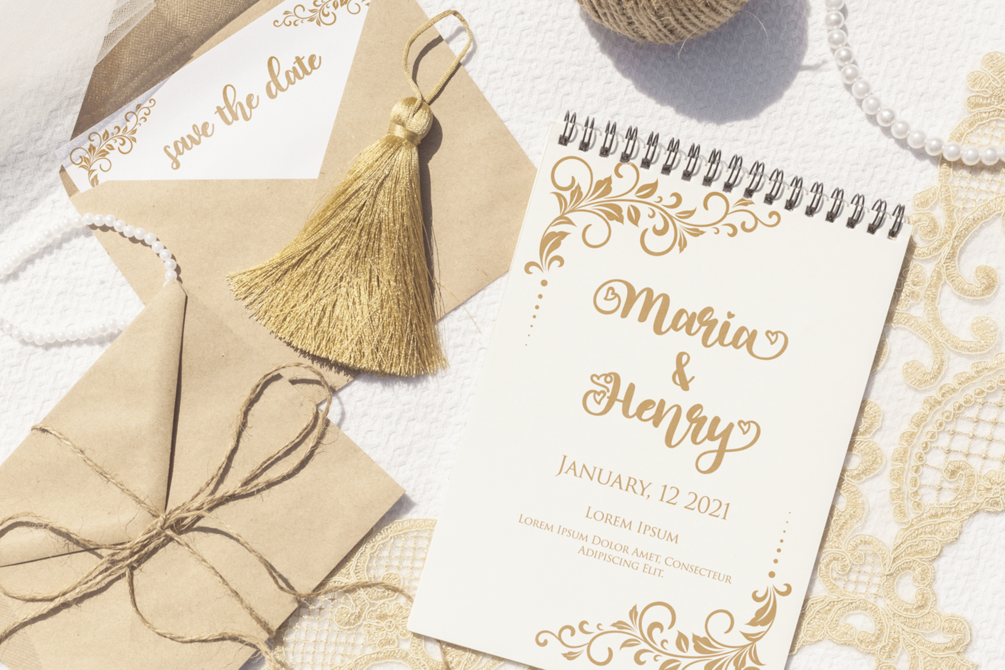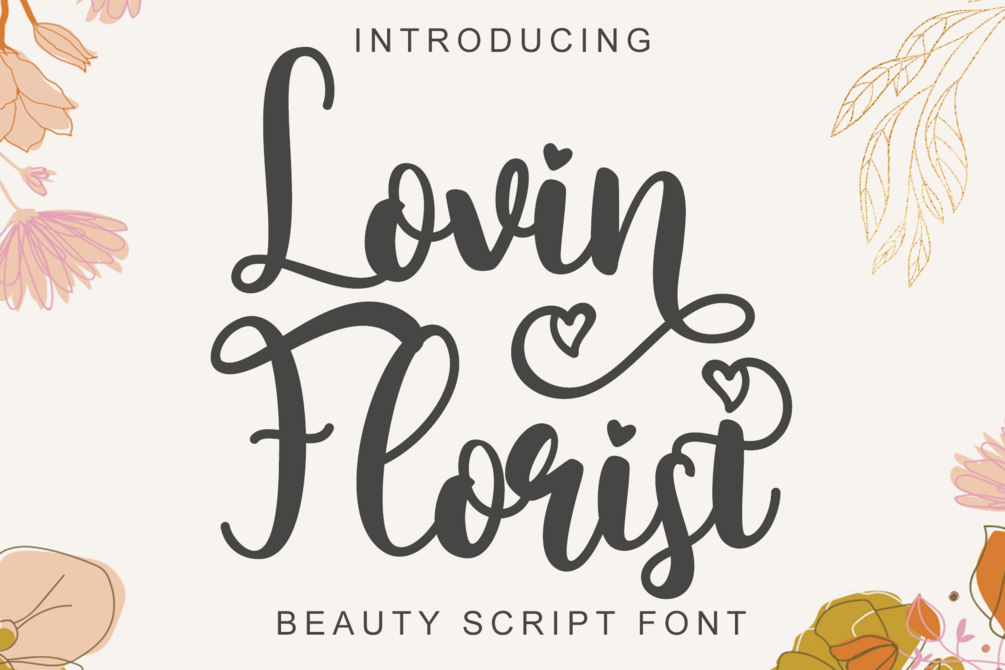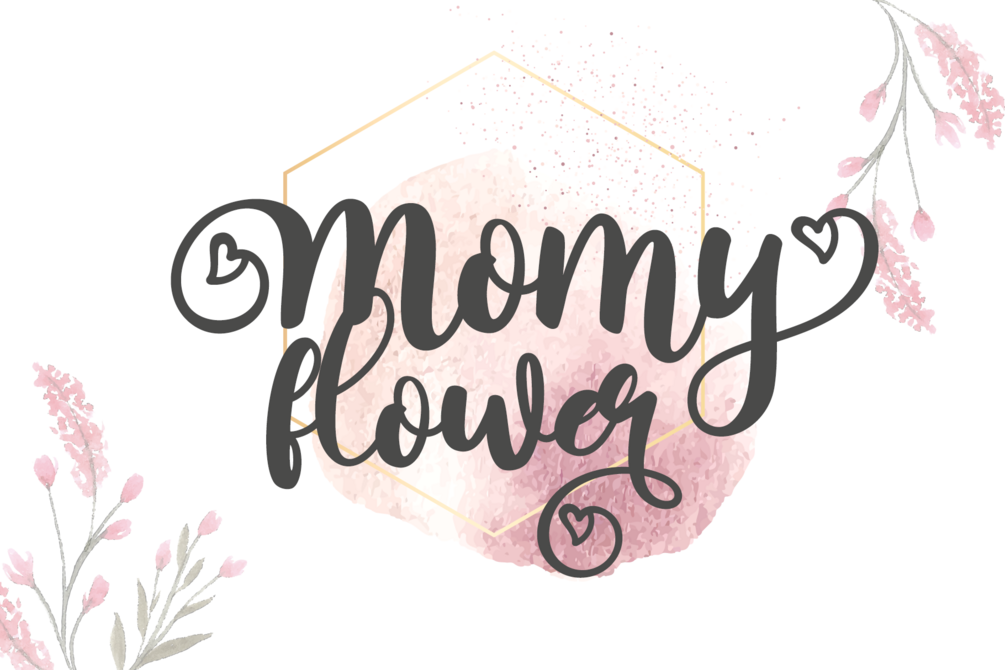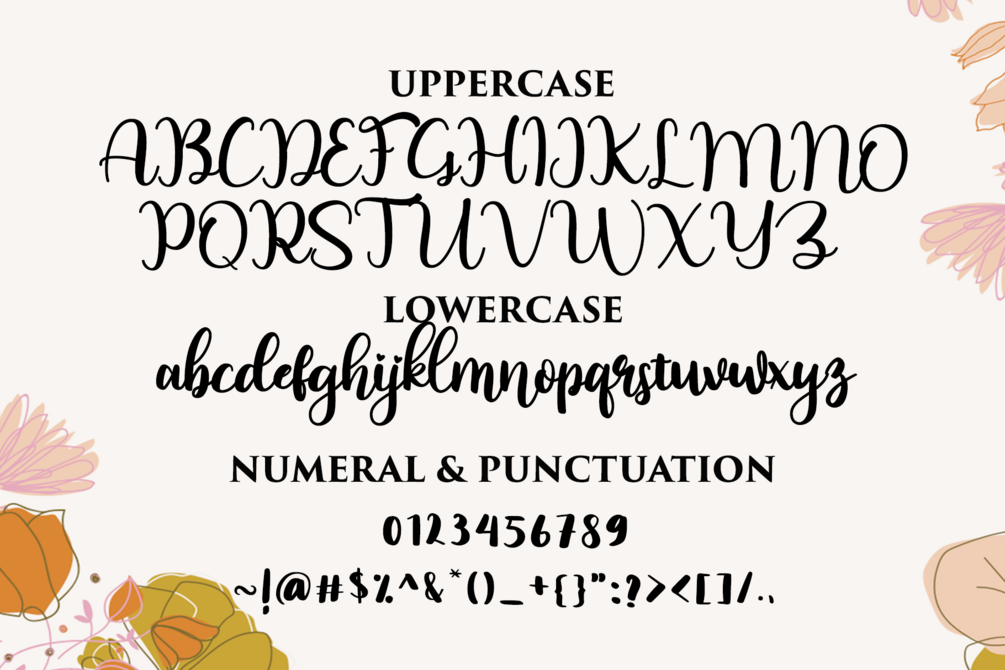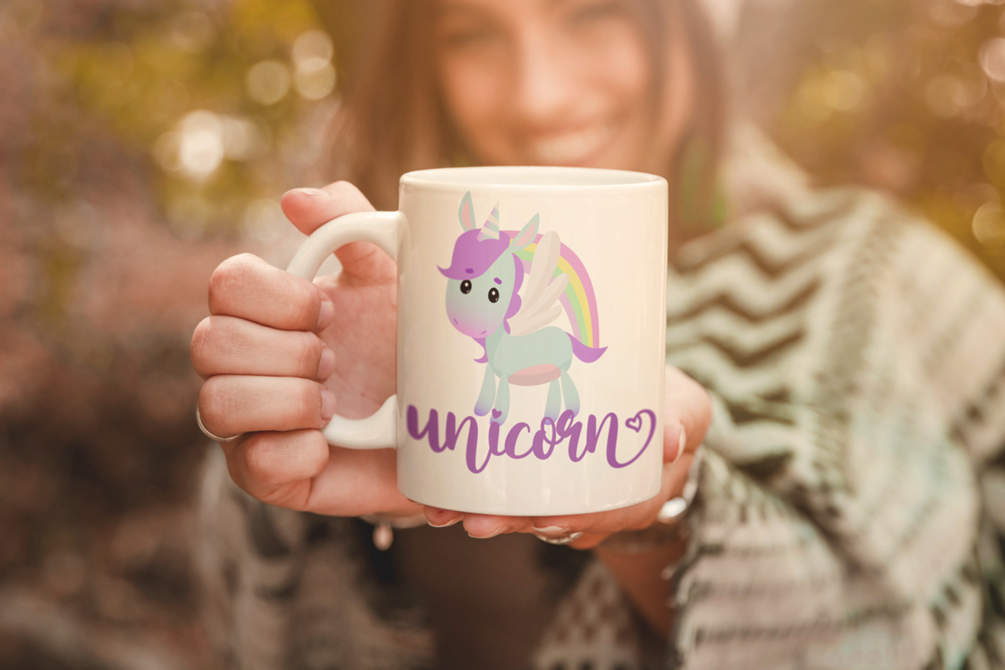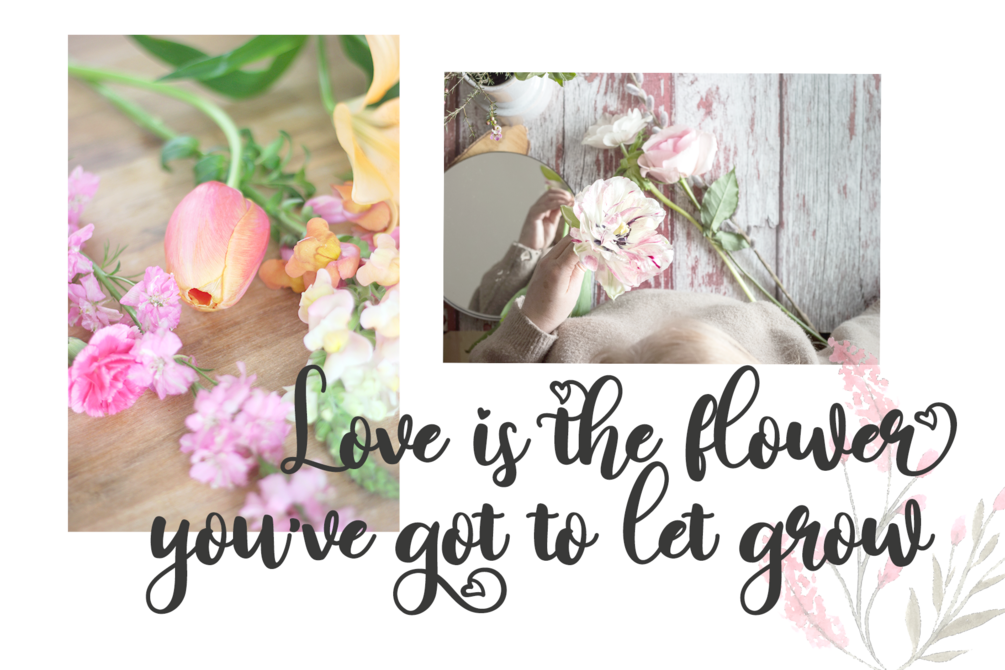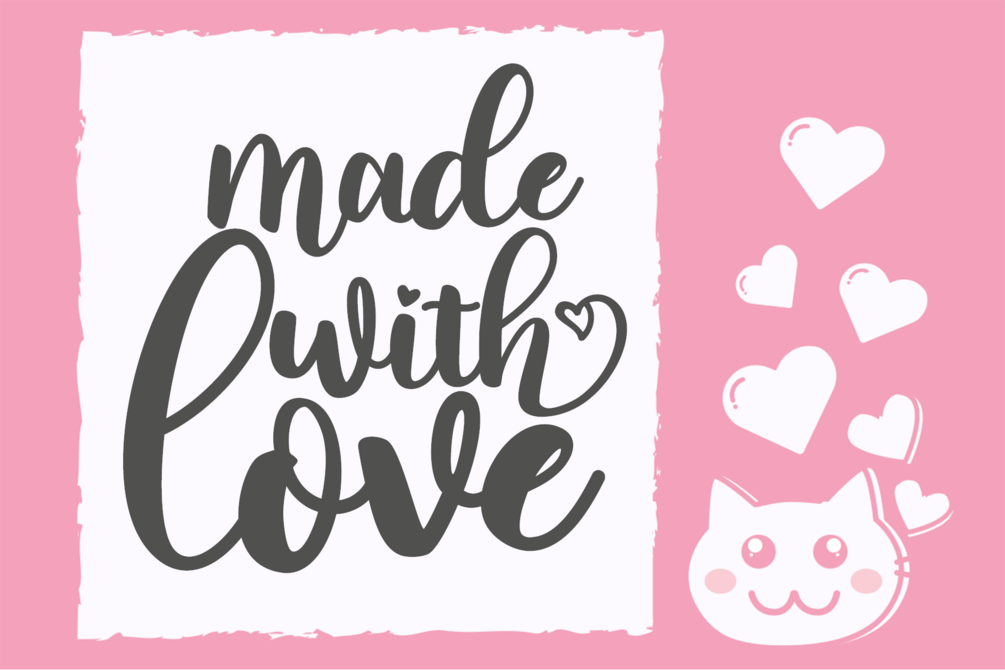
Lovin Florist
Lovin Florist is an amazing hand lettering script font that looks natural, attractive, and beautifully crafted. Every single letter is meticulously designed to bring authentic handwritten charm and elegant flow to your text. With 306 glyphs, including 104 alternate characters and over 60 extended Latin characters for multilingual support, this font is perfect for wedding invitations, love-themed designs, custom mugs, Christmas cards, posters, branding, greeting cards, floral logos, social media graphics, and Cricut projects.
• 104 Alternate Characters
• Ligatures
• Multilingual Support (60+ Latin-based languages)